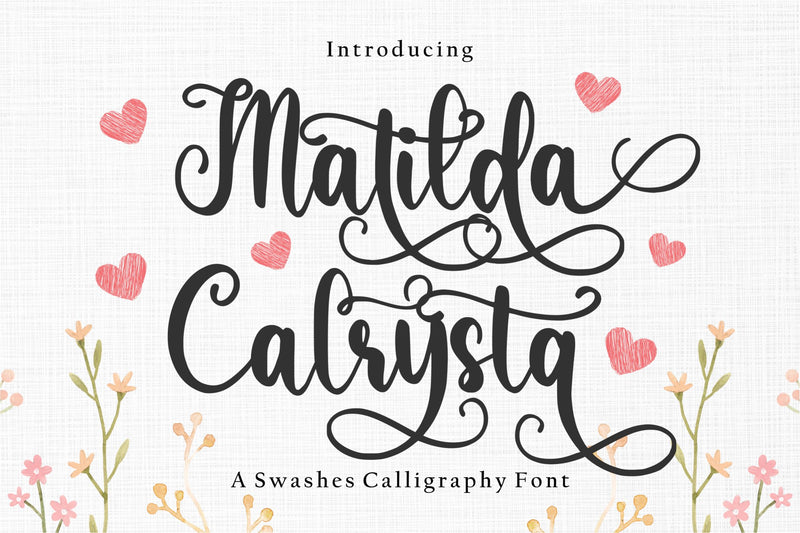
Matilda Calrysta
Proudly Present, Matilda Calrysta
Matilda Calrysta is a Swashes Calligraphy Font
Matilda Calrysta is perfect for product packaging, branding project, megazine, social media, wedding, or just used to express words above the background.